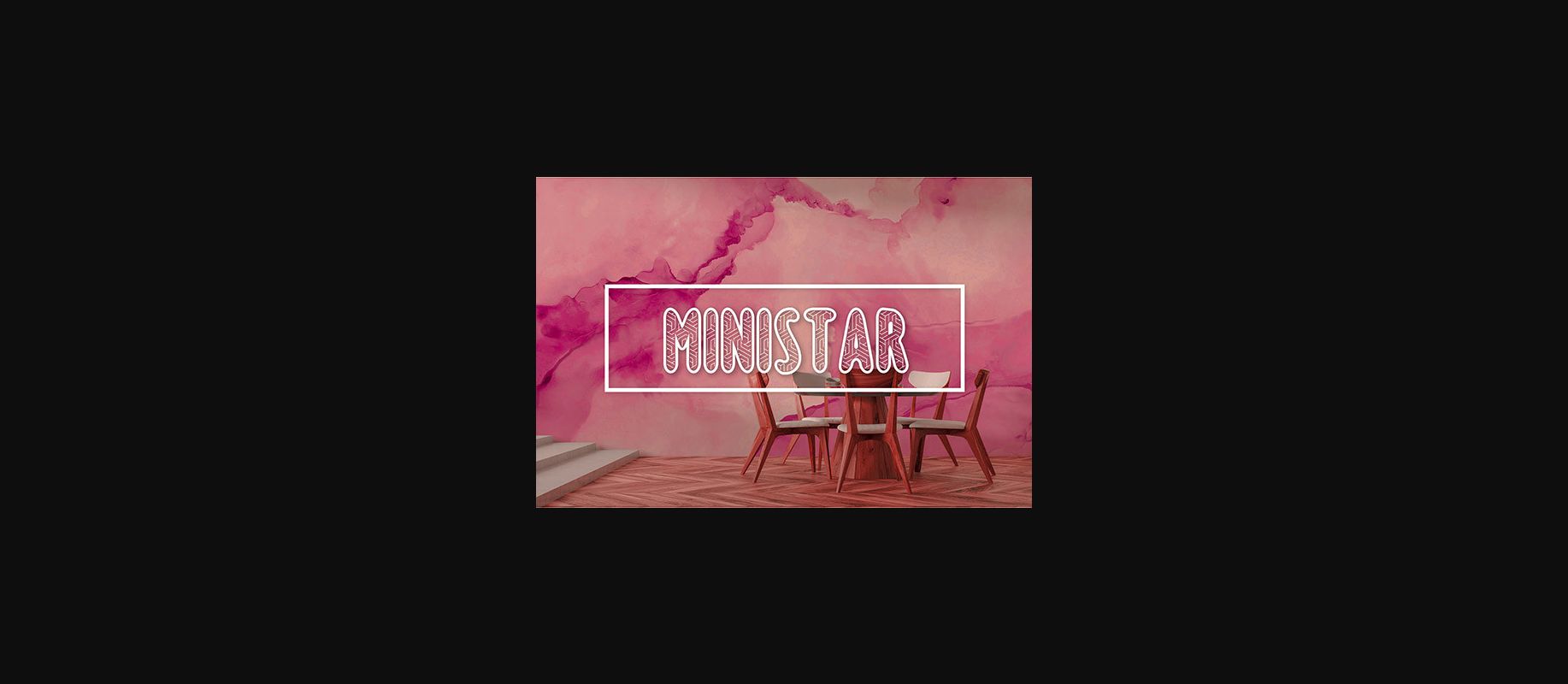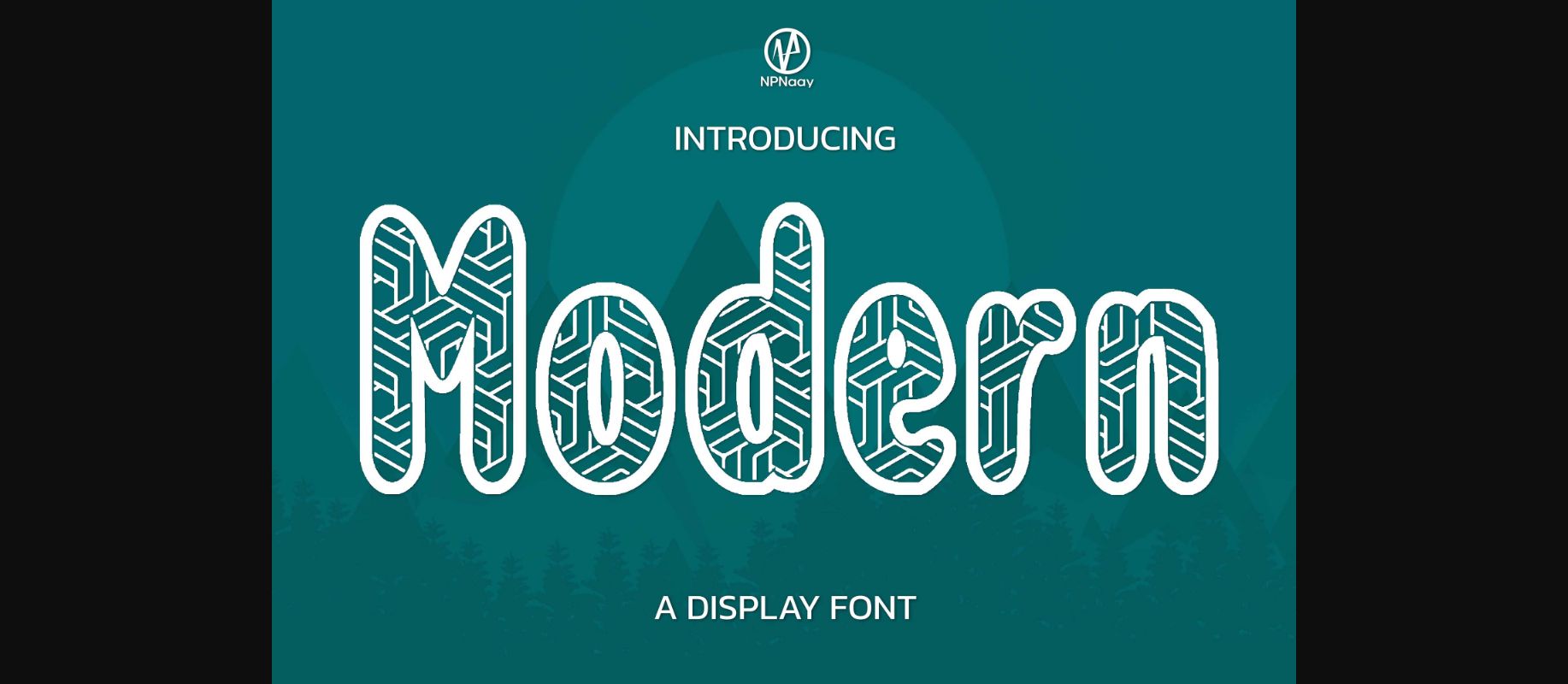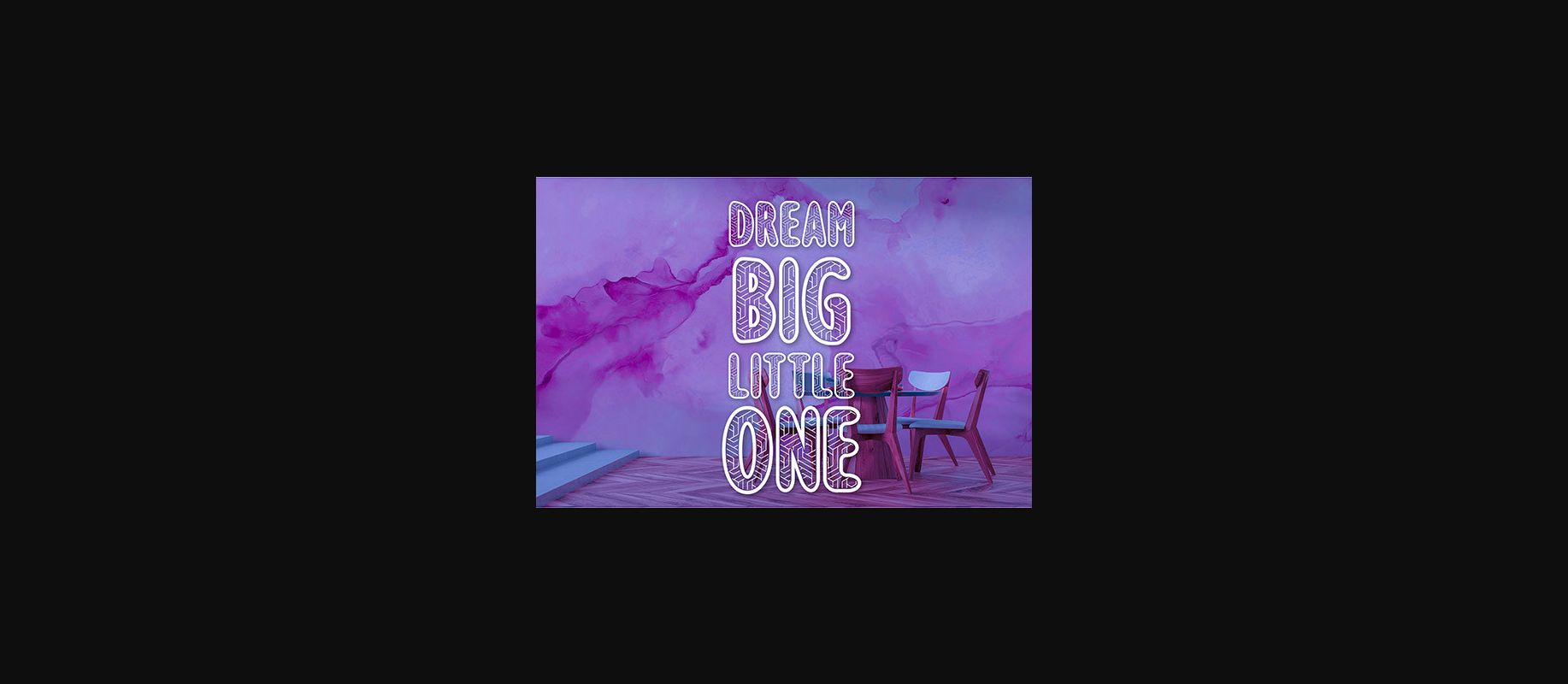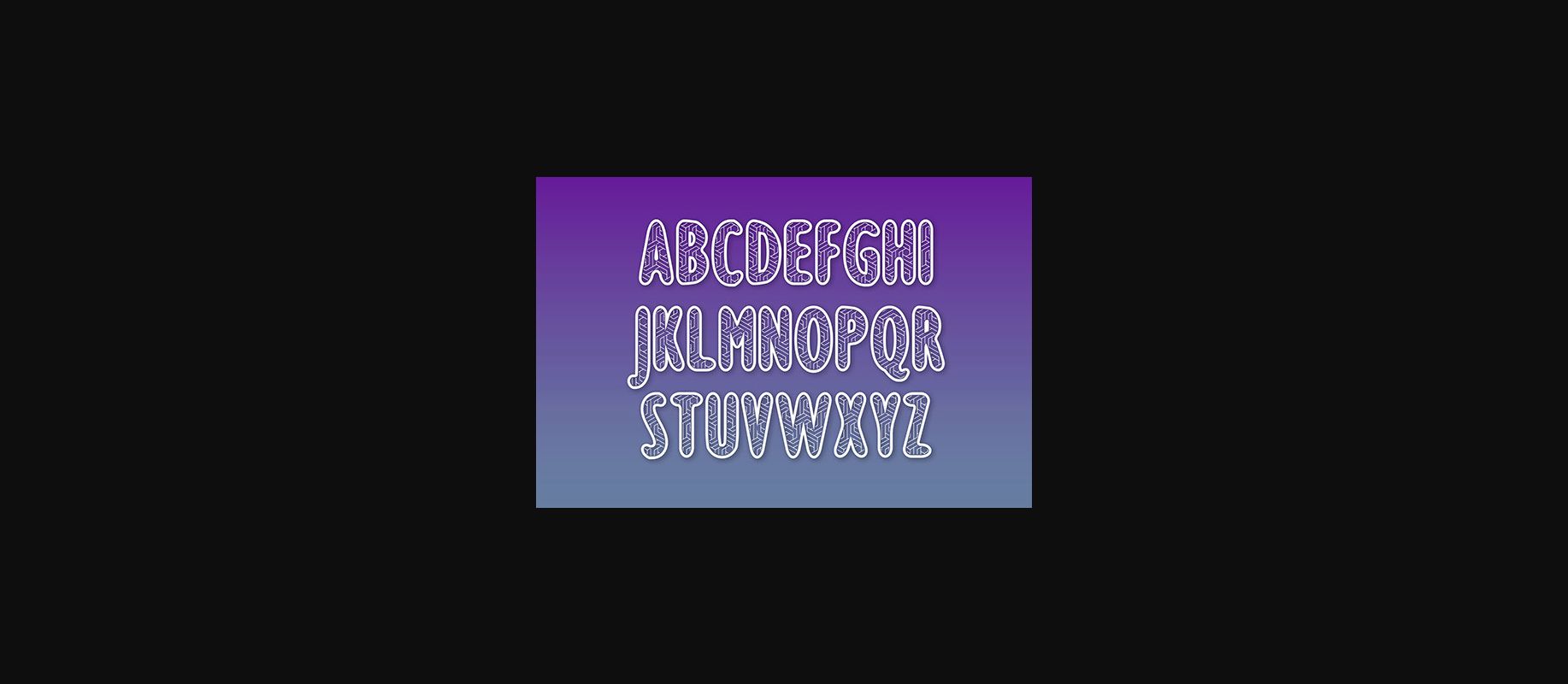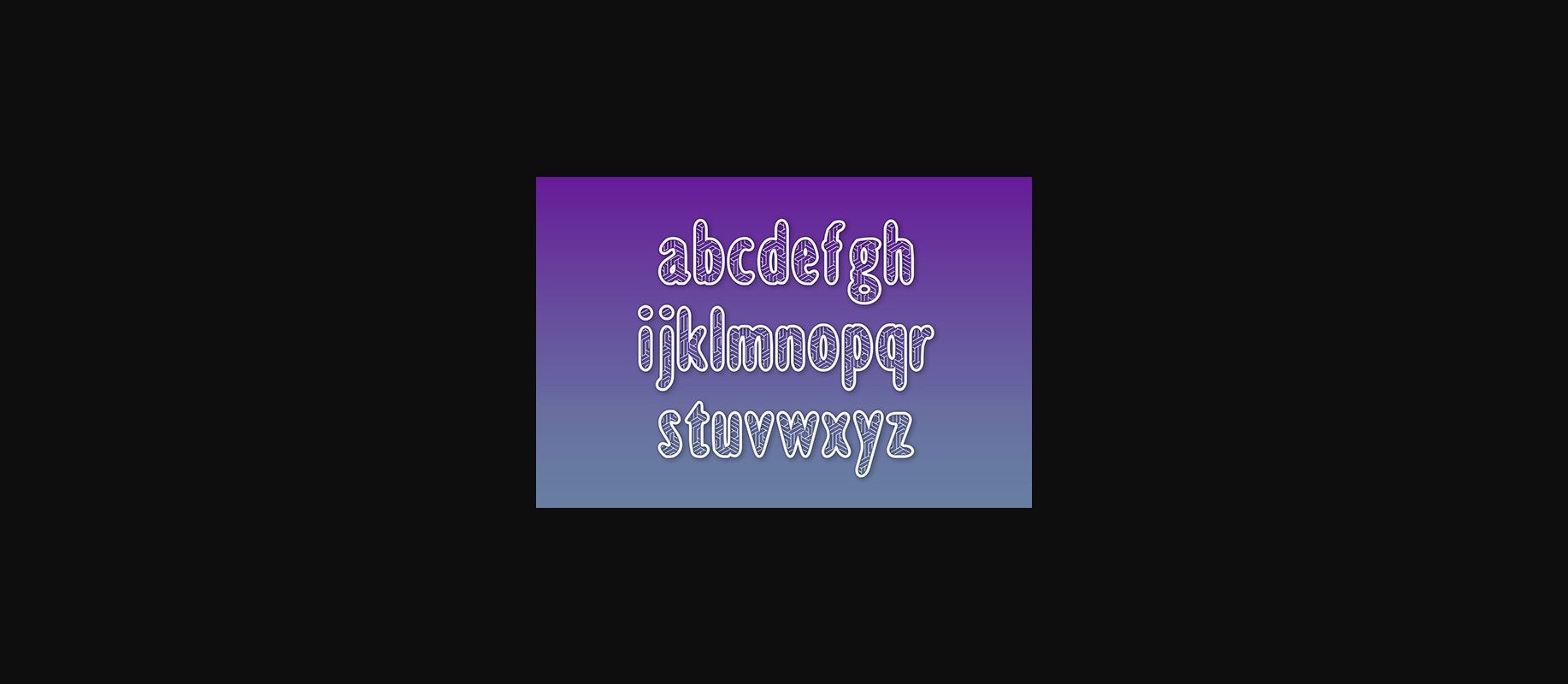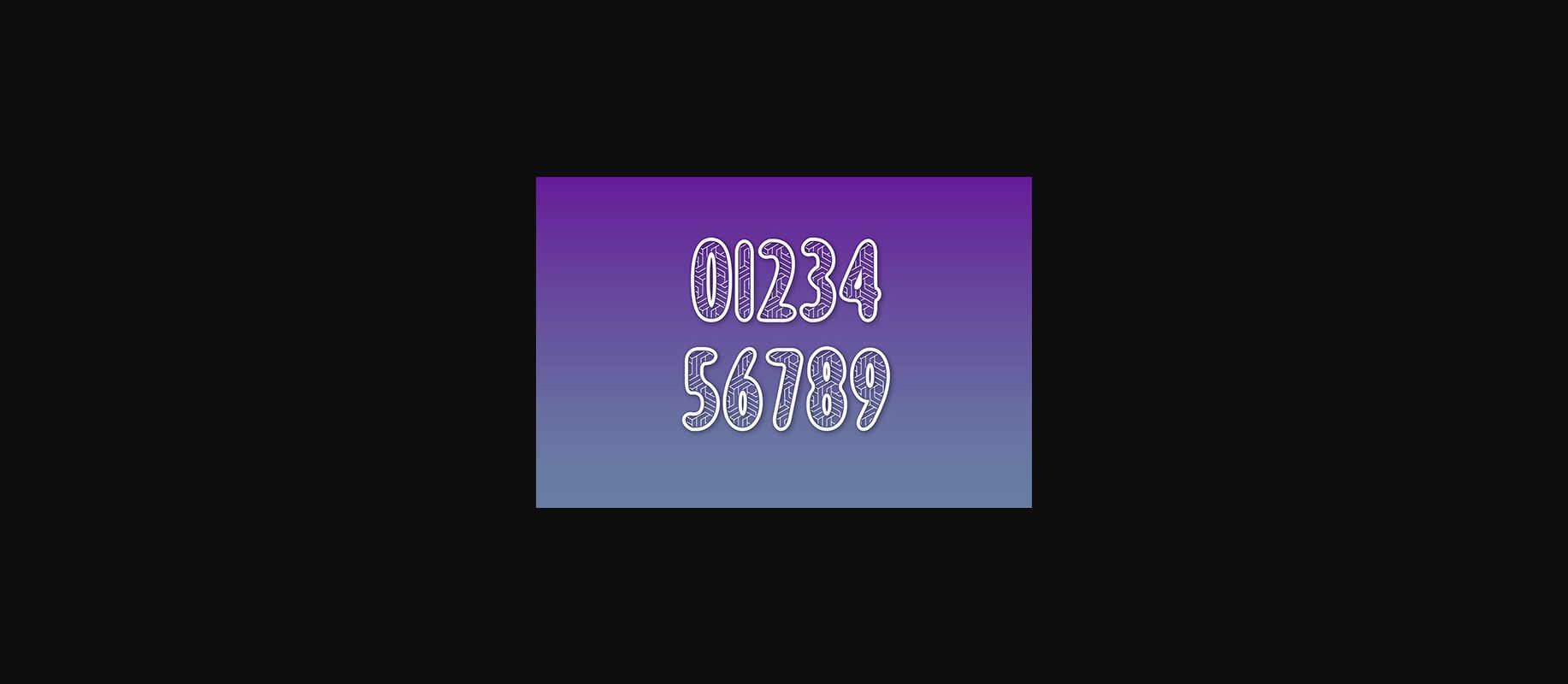
Modern Font
About Modern Font
Modern is a stylish and fun decorative font. No matter the topic, this font will be an incredible asset to your fonts’ library, as it has the potential to elevate any creation.